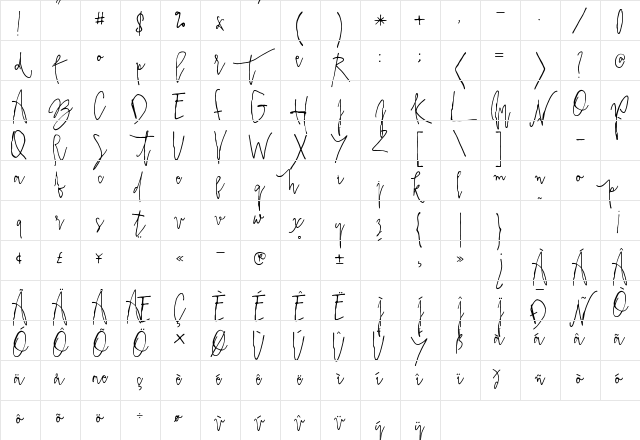
PrestigeScriptAlt Regular Free Font
PrestigeScriptAlt Regular
Foundry: Filia MyCandyThemes
Designer: Filia
Design Context for PrestigeScriptAlt
PrestigeScriptAlt flows with the natural rhythm of handwritten lettering, making it ideal for designs that call for warmth and personal expression.
Font Pairing: Combine PrestigeScriptAlt with a simple geometric sans for maximum contrast - the tension between flowing curves and clean structure is a classic typographic pairing.
Pro Tip: Use PrestigeScriptAlt for short runs of text - names, titles, or taglines. Extended body copy in script faces tires the eye quickly.